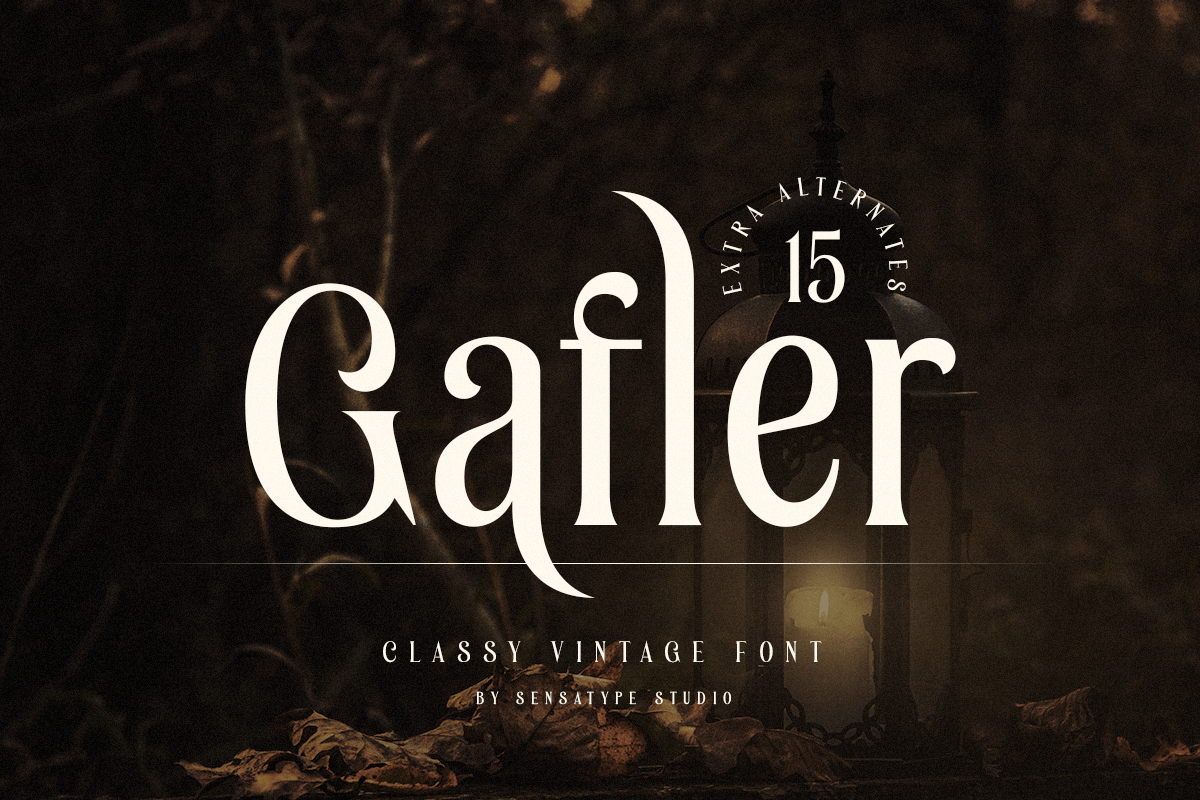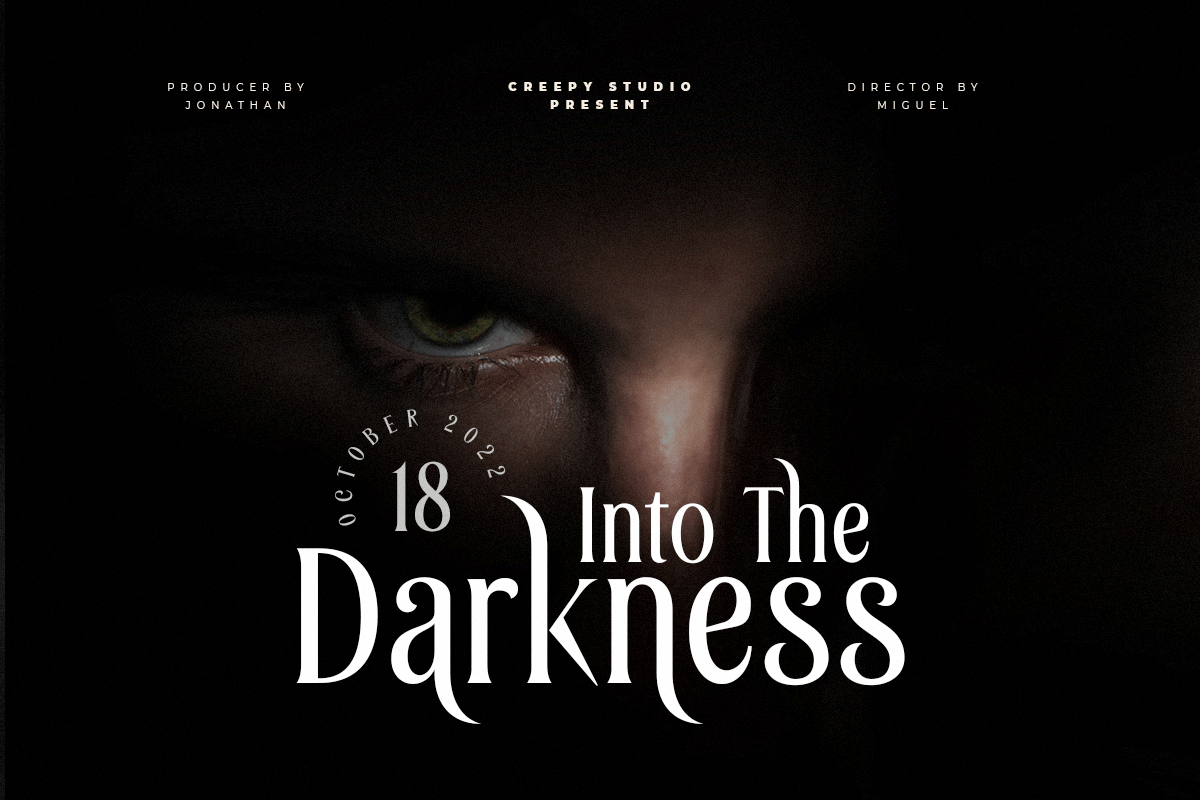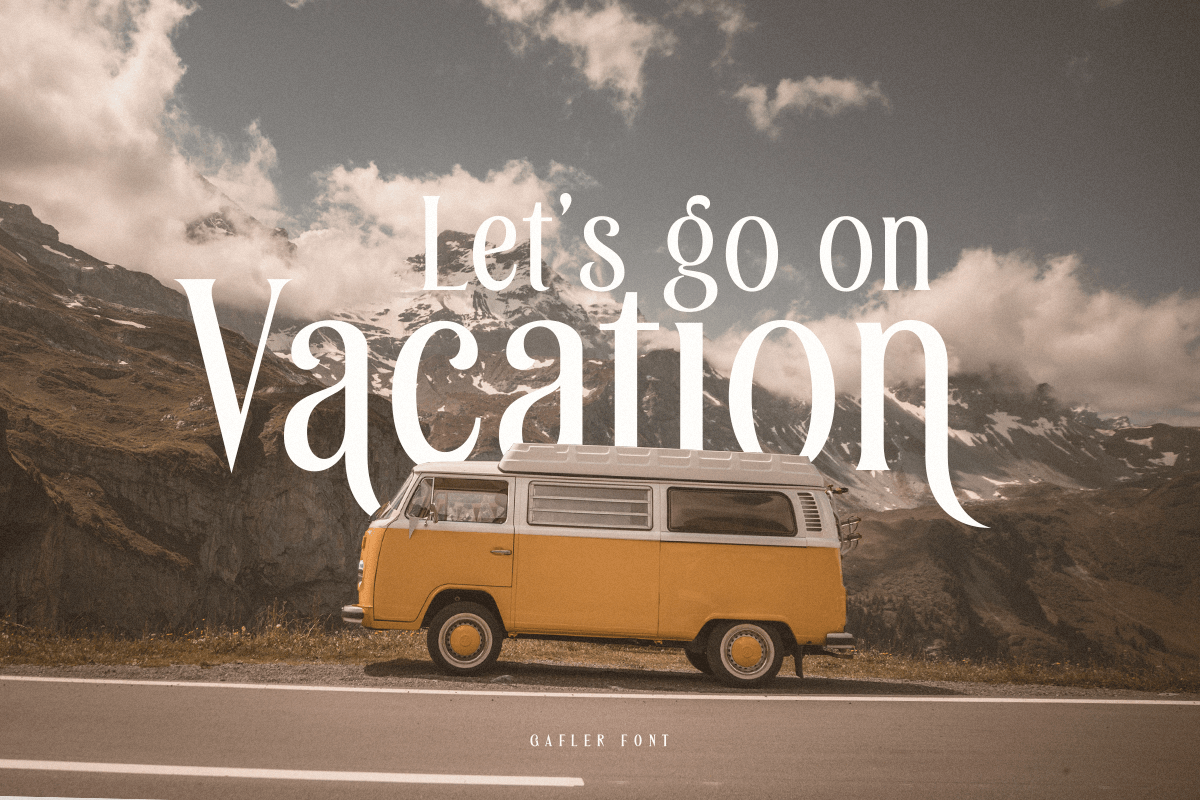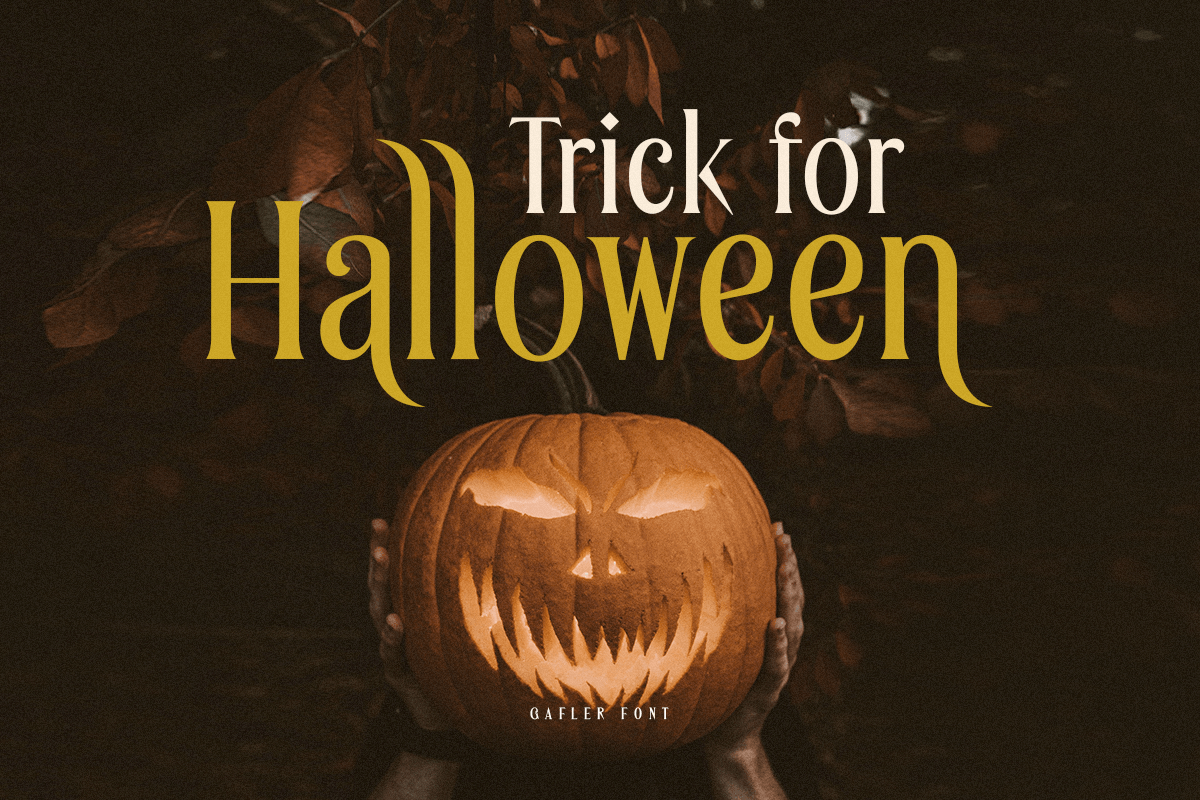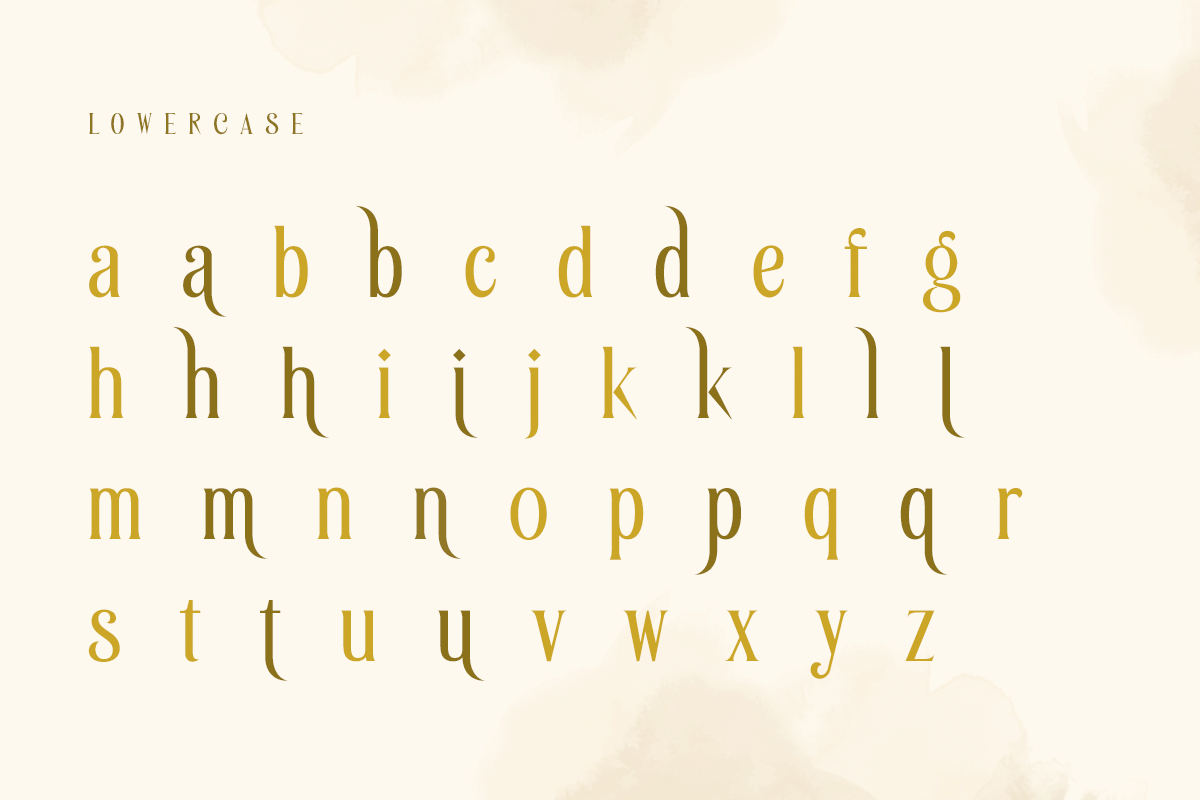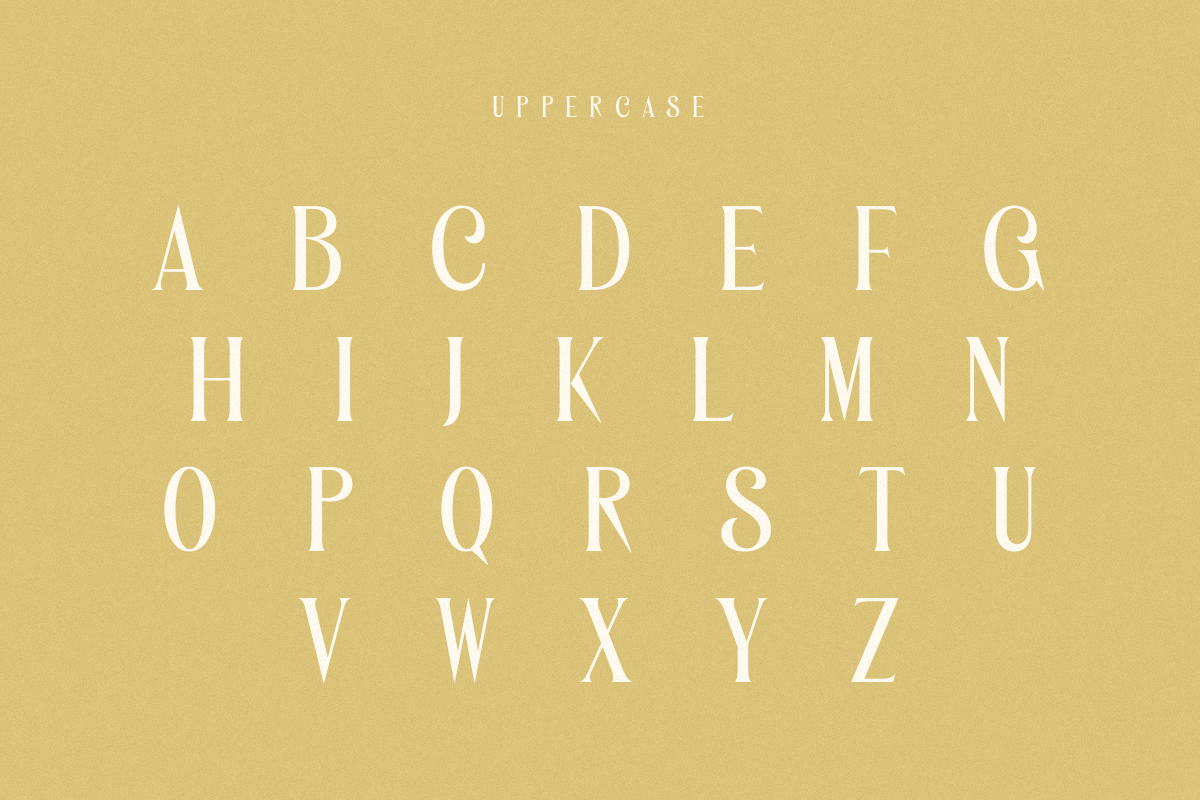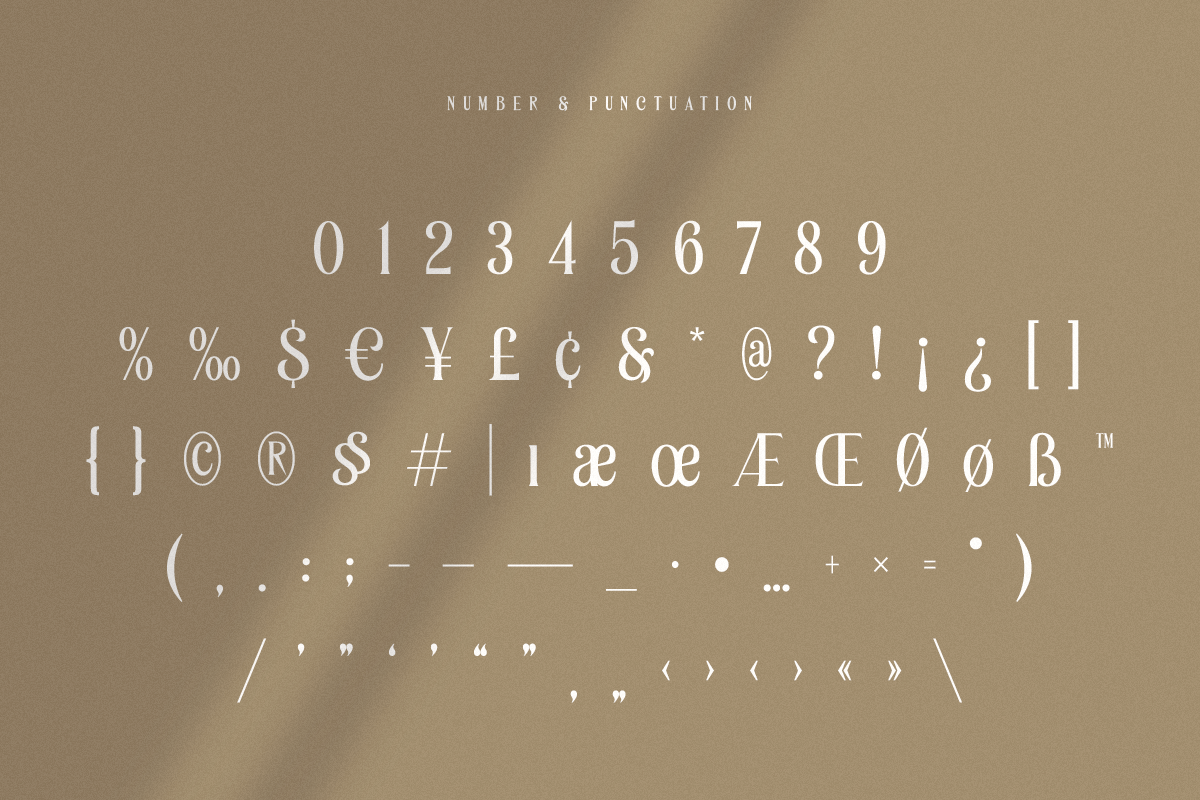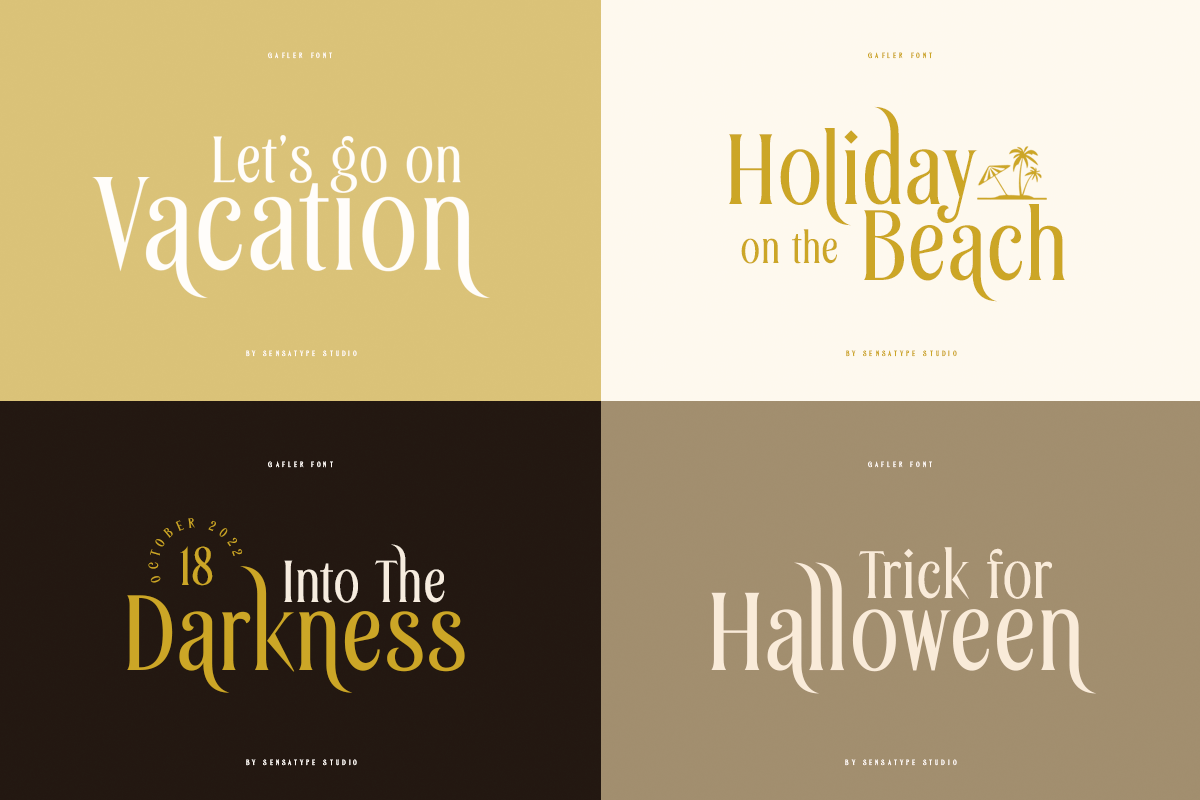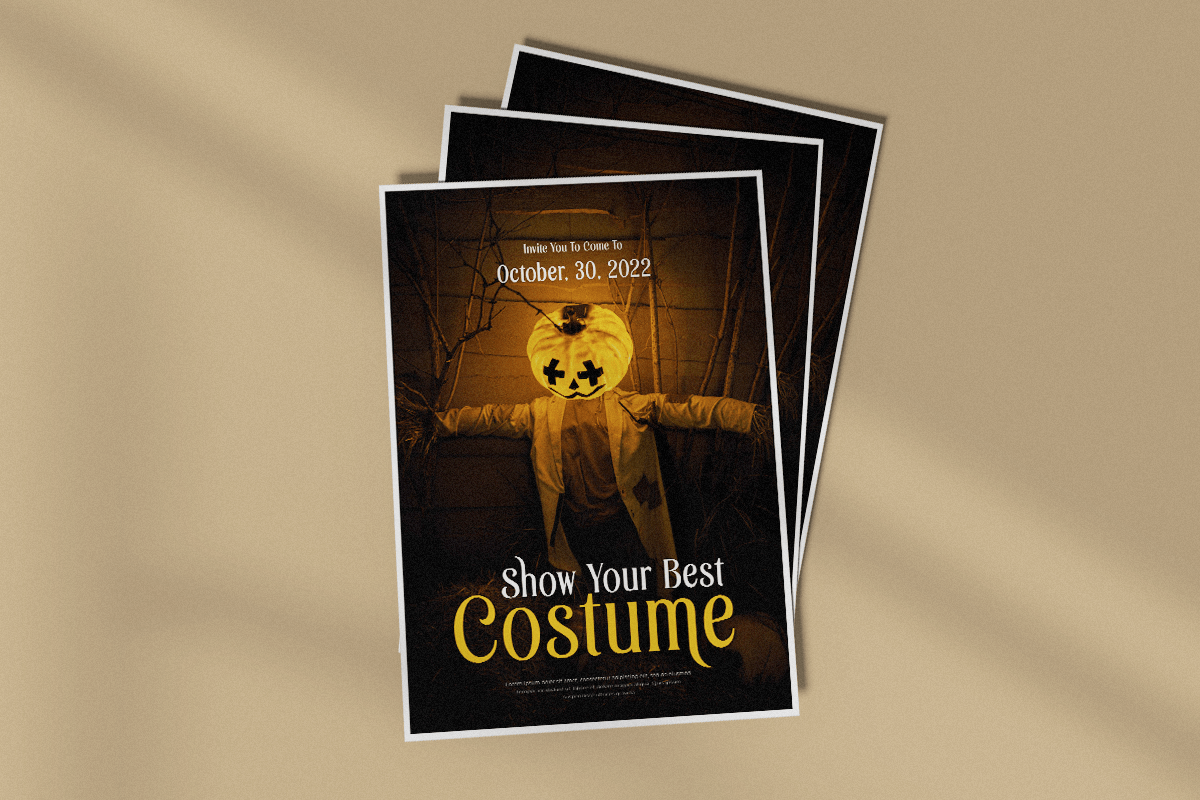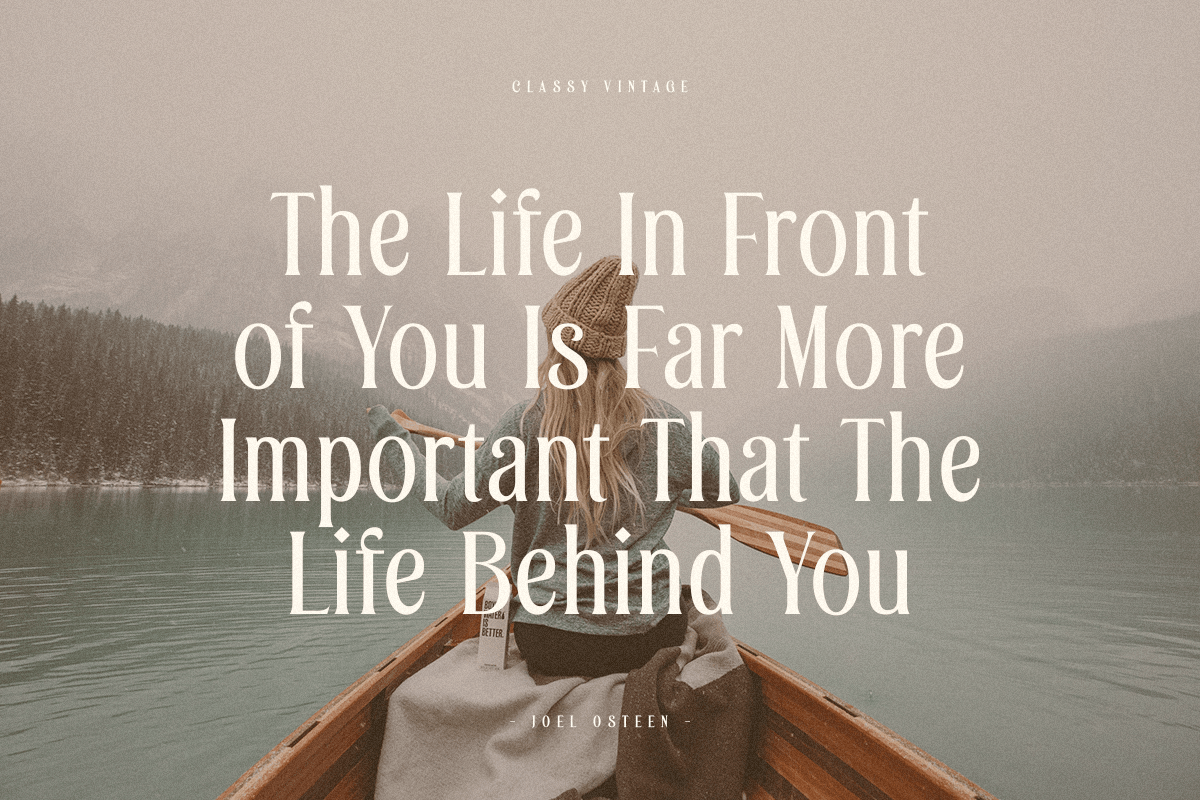
Gafler
-Classy Vintage Font
Gafler
Gafler is a vintage font that produced with unique style and ready for vintage projects.
Based on our experience as a graphic designer who works for a lot of companies, we often are requested to design a graphic with a vintage feels and classy style. So, we try to brainstorming and create this font to make the idea is going out. This is perfect for show off in vintage style and retro vibes. You will get vintage, classy, and certainly unique style with this font.